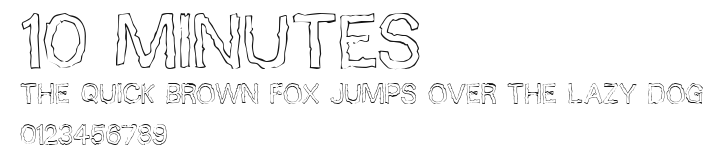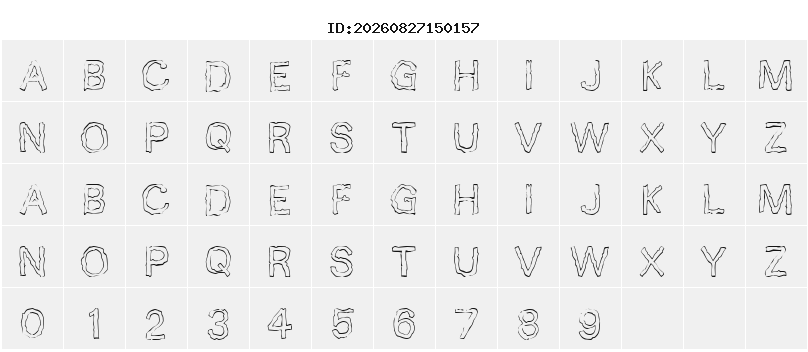
• Font Name: 10 Minutes
About 10 Minutes.ttf
10 Minutes.ttf is a modern, elegant sans-serif font designed for ultimate readability and visual harmony. Perfect for branding, headlines, web design, and print materials.